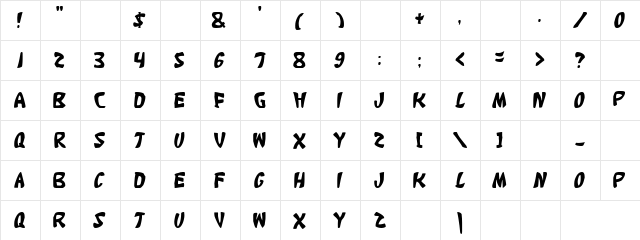
Kapa Kabana Regular
Design Context for Kapa Kabana Typeface
Kapa Kabana is a composed and adaptable typeface that performs quietly and consistently across a wide range of design contexts.